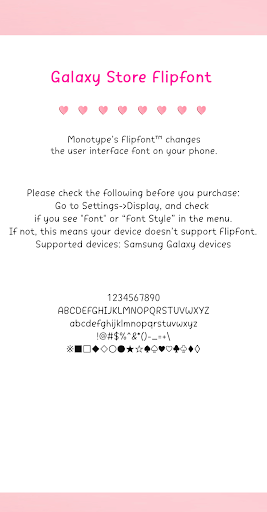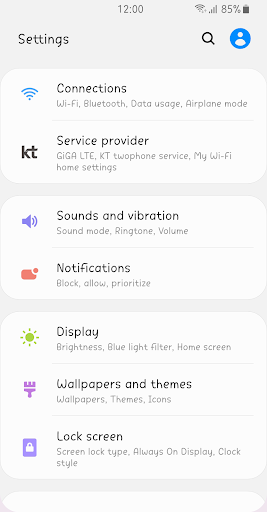
Fine Mellow
It is a handwritten font that does not change much in thickness.
The natural and comfortable handwriting form creates a lovely and sweet atmosphere.
At this moment, I feel like I'm going to fly as if I'm in a dream.
I will collect my precious hearts and give them to you.
I'll hug you warmly and whisper sweetly.